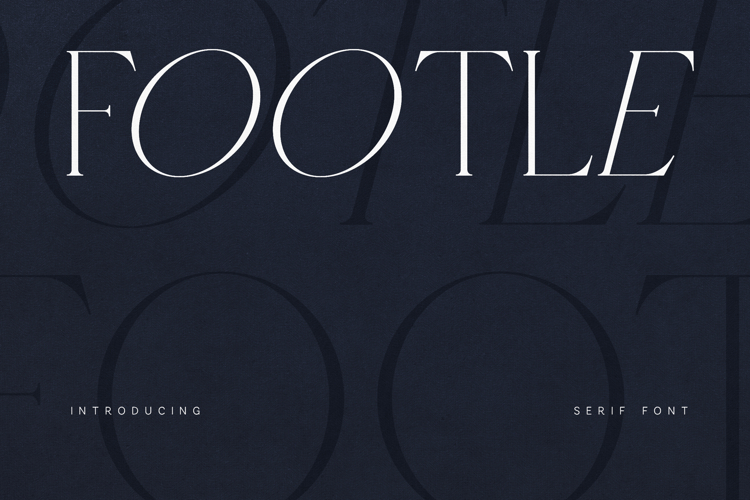
Footle Elegant Modern Serif Font
Footle is a refined modern serif typeface designed for elegant branding, editorial layouts, and sophisticated typography. The font combines delicate high-contrast strokes with balanced proportions, creating a timeless and stylish visual presence.
Its graceful curves and sharp serif details give the typeface a luxurious personality that works beautifully in fashion branding, magazine titles, logo design, packaging, and high-end visual identities. The letterforms maintain excellent readability while preserving a distinctive and premium typographic style.
Footle is especially well suited for projects that require elegance and clarity. Whether used for headlines, brand identities, editorial design, or modern luxury packaging, the typeface adds a refined and professional look to any design.
The font includes uppercase and lowercase characters, numerals, punctuation, and extended multilingual support, making it a versatile solution for international design projects.
With its sophisticated structure and modern elegance, Footle is perfect for designers looking to create memorable and stylish typography.